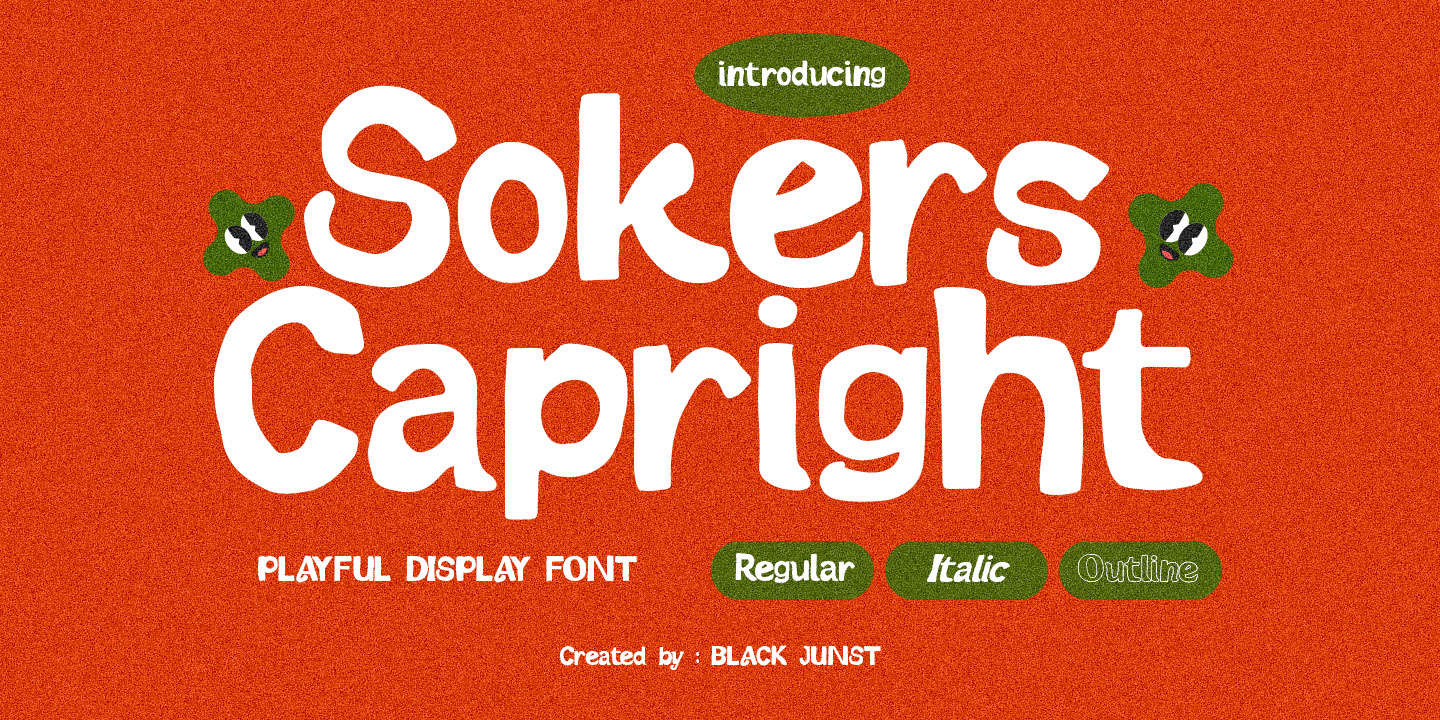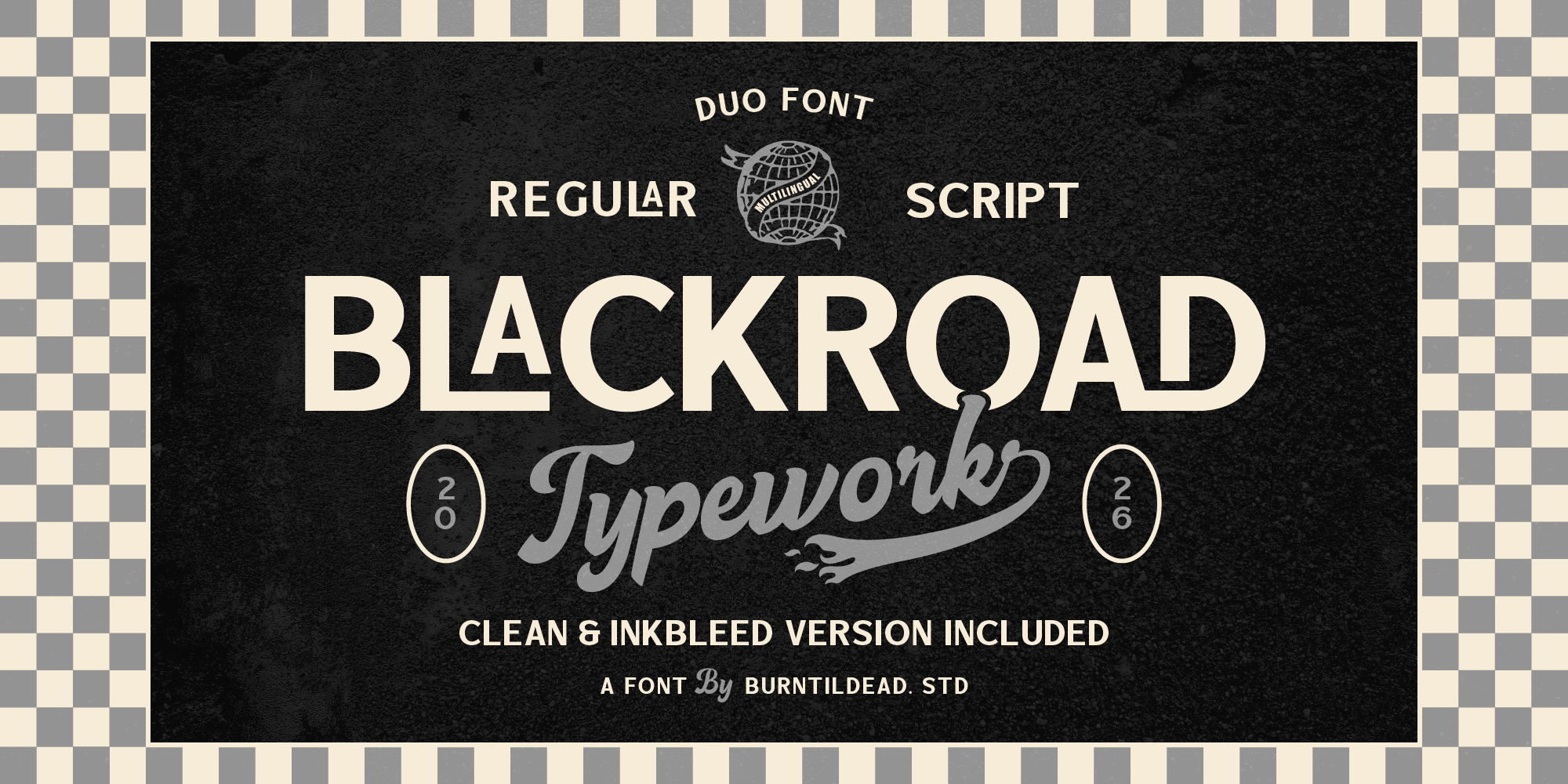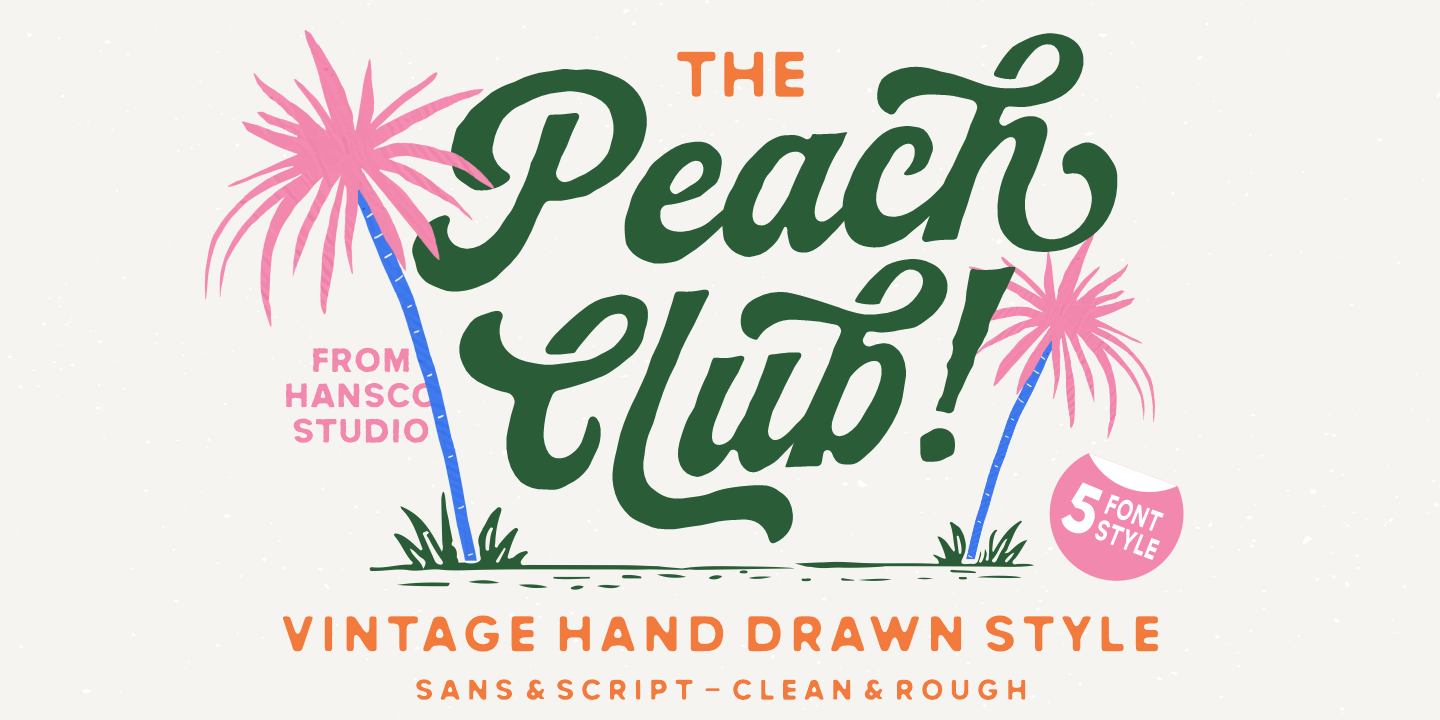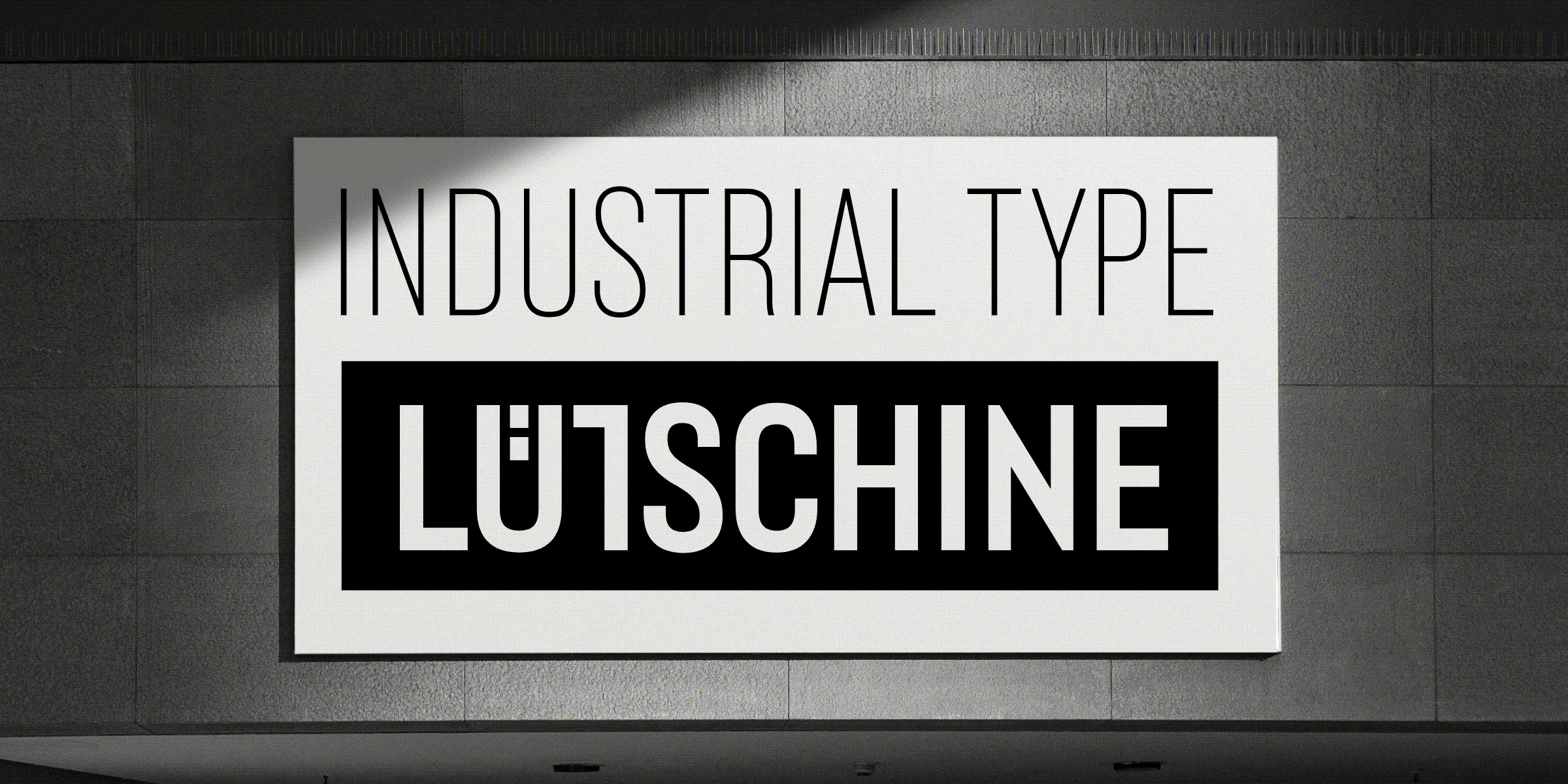
Lütschine is a highly adaptable industrial sans serif font family crafted for maximum versatility and visual impact. Built on a foundation of modern, elegant, minimalistic letterforms, it offers exceptional control over typographic mood and rhythm with multiple widths, weights, and unique x-height variations.
The robust, carefully spaced lowercase alphabet transforms the family from a commanding headline typeface into an efficient, space-saving tool for paragraph text. Lütschine is the ideal choice for dynamic branding, logo design, complex editorial layouts, and digital environments, empowering designers with infinite scalability and pristine legibility across diverse applications.
Sokers Capright is a playful display font designed to infuse bold personality and fun energy into your creative projects. Featuring chunky, organic letterforms with slightly irregular shapes, this typeface offers a friendly, hand-crafted feel that instantly captures attention.
Ideal for branding, packaging, posters, social media, and children-themed designs, Sokers Capright seamlessly blends retro charm with modern playfulness. The font is available in multiple styles, including Regular, Italic, and Outline, providing the flexibility to create dynamic and eye-catching compositions.
Whether you're designing snack packaging, streetwear branding, or vibrant editorial layouts, this font adds a cheerful and expressive tone to your typography.
Blackroad is a bold and stylish duo font that combines a clean sans serif with a smooth vintage script. Designed to bring a strong retro personality, this font is perfect for creating eye-catching designs with a classic and rugged feel.
With its regular and script styles, Blackroad gives you the flexibility to mix and match typography effortlessly. The clean sans serif keeps everything readable and modern, while the script adds a handcrafted, authentic touch.
Introducing a beautifully crafted Hand-Drawn Peach Club Font that combines the charm of classic script lettering with the clean versatility of a modern sans serif. The script font features natural strokes, smooth curves, and authentic hand-drawn imperfections, giving your designs a warm, nostalgic personality. Perfect for logos, branding, packaging, and vintage-inspired artwork. Paired with a complementary sans serif, this bundle ensures readability and flexibility, making it ideal for layouts, headlines, and supporting text.
Montaroza is a rough texture display font that blends geometric precision with modern irregularity, creating a bold and confident visual identity. Its key characters O, M, E, A, R, and Q are built on solid geometric foundations with clean base forms and consistent, heavy stroke rhythm that establish a strong and stable structure. This balance is intentionally disrupted by subtle asymmetrical details, adding a contemporary edge that feels expressive without losing control. The result is a compact, striking silhouette that performs exceptionally well in headlines, logos, packaging, and branding projects that demand a modern, textured, and impactful presence.